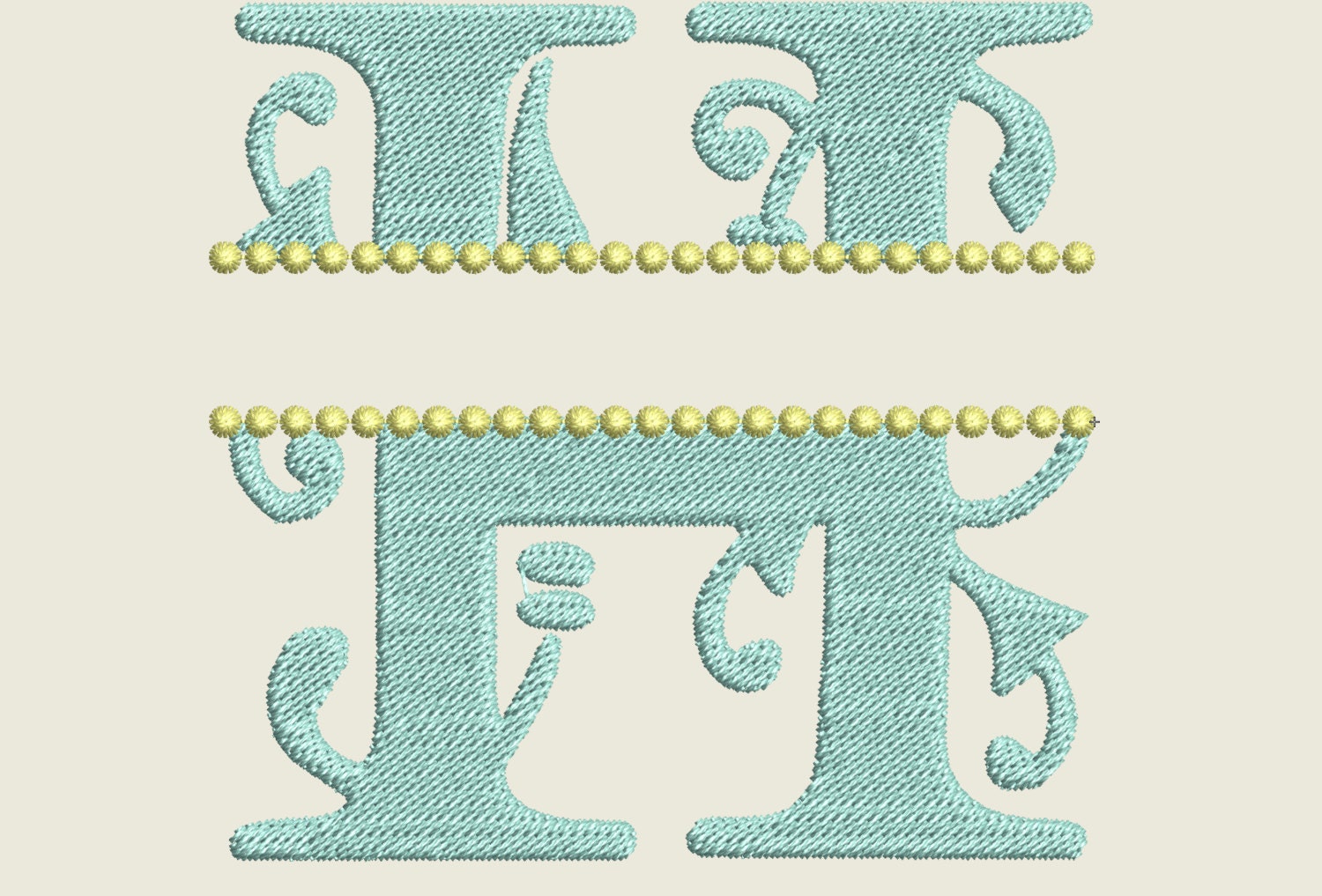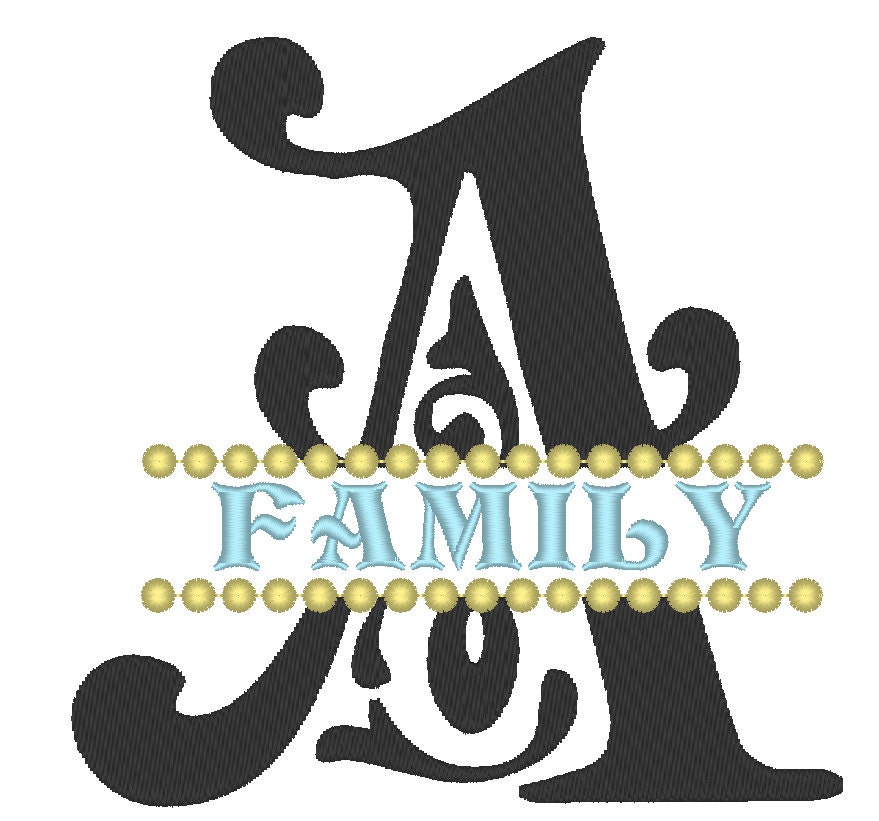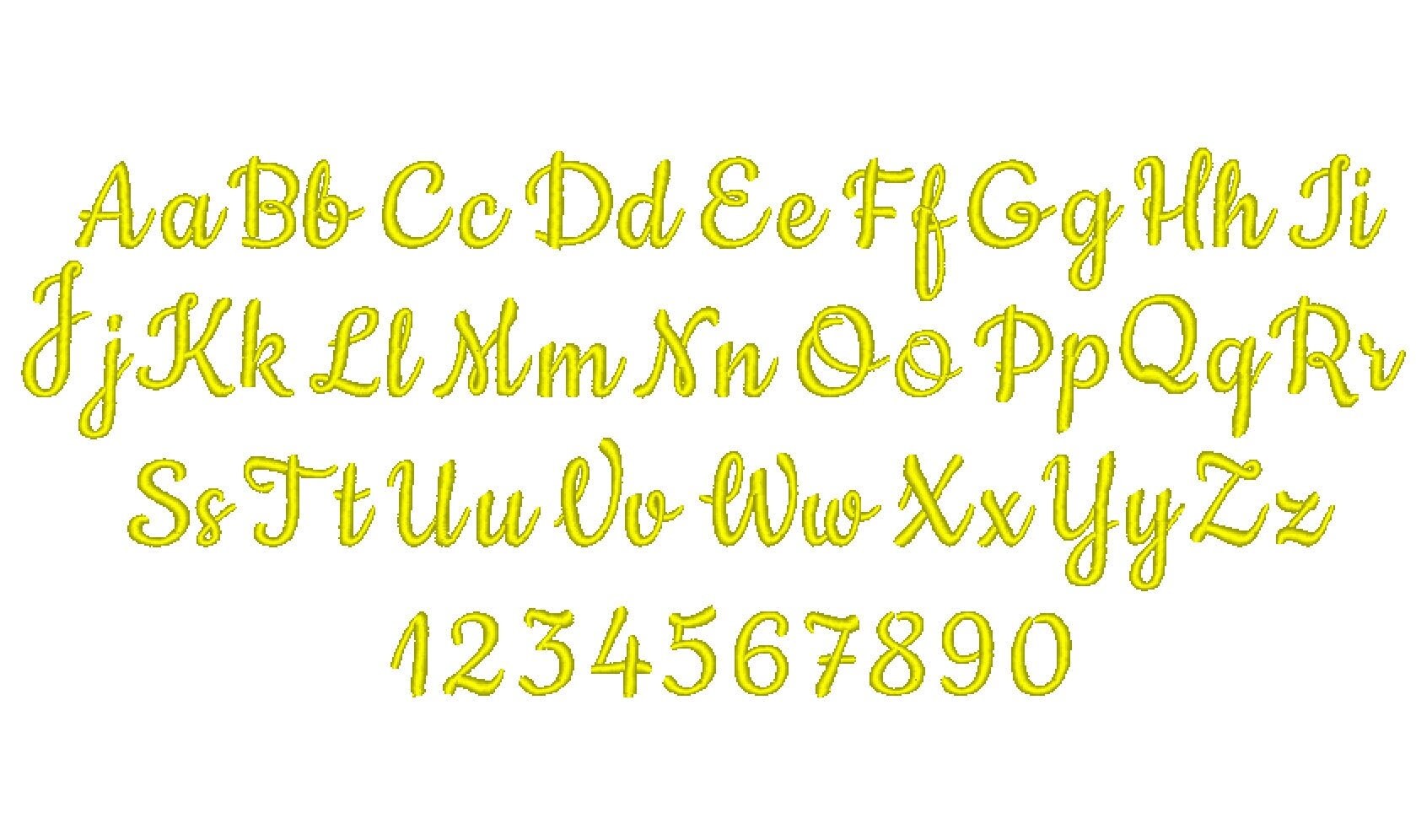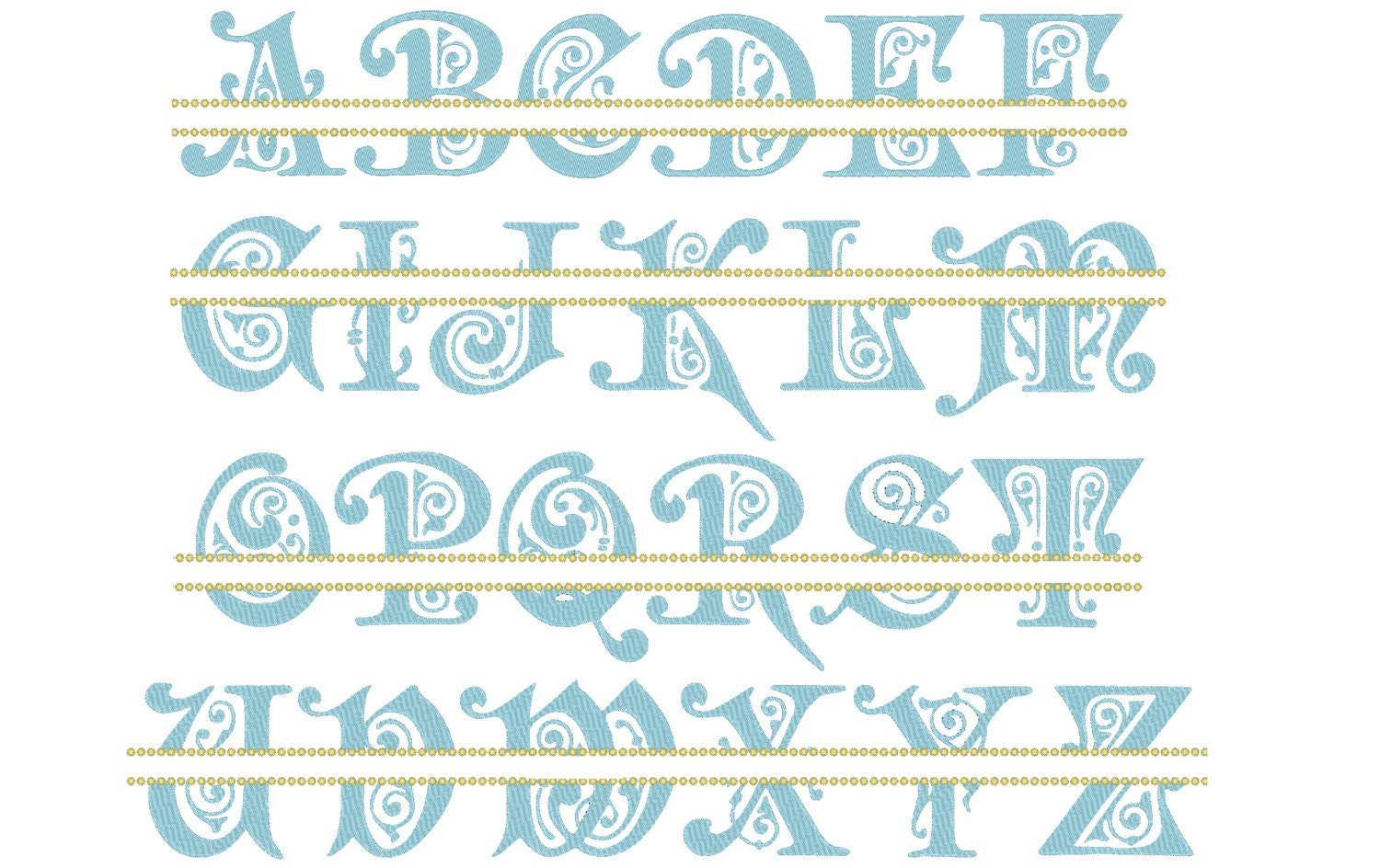
Beautiful Split Monogram Font A-Z machine embroidery designs and mini font included multiple sizes for hoop 4x4, 5x7 personalized gift idea
Split monogram letter has fill stitch.
Mini Font included